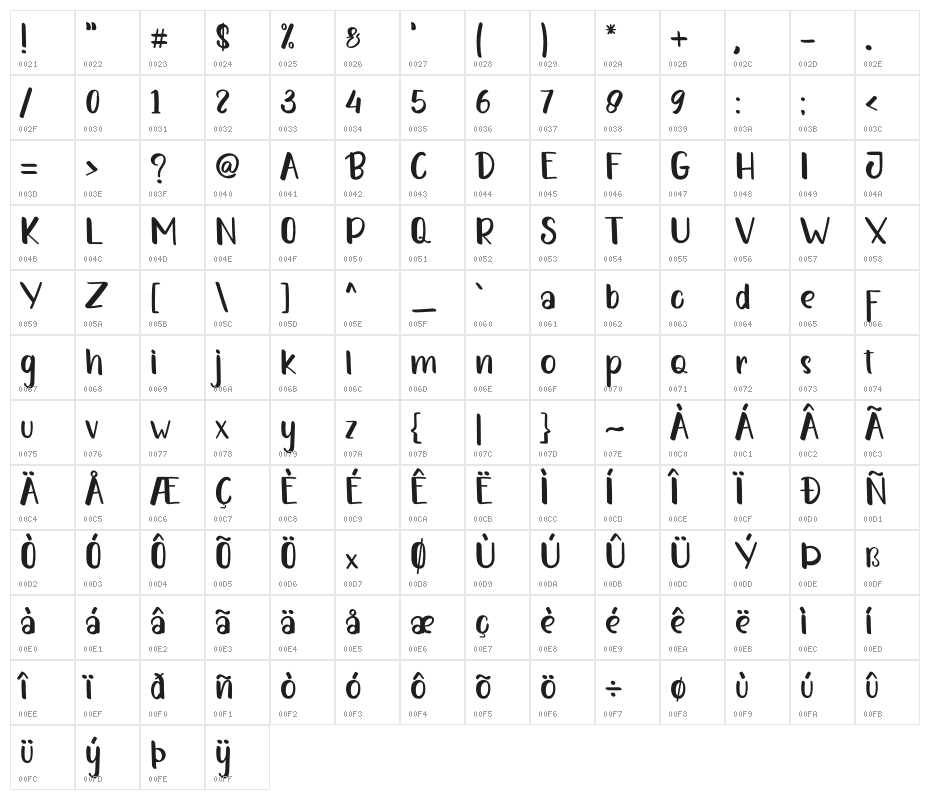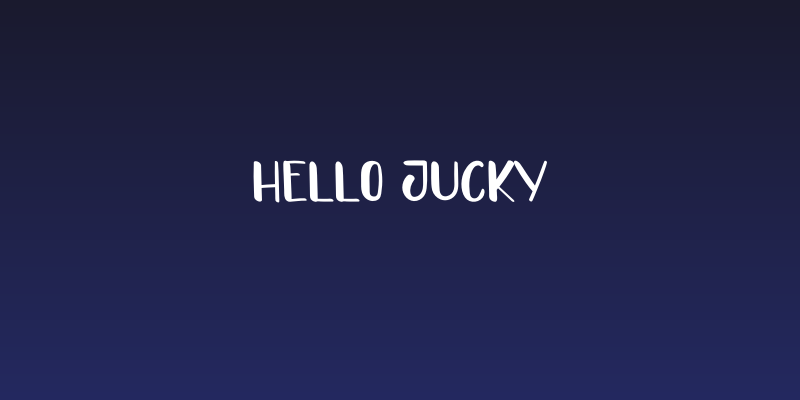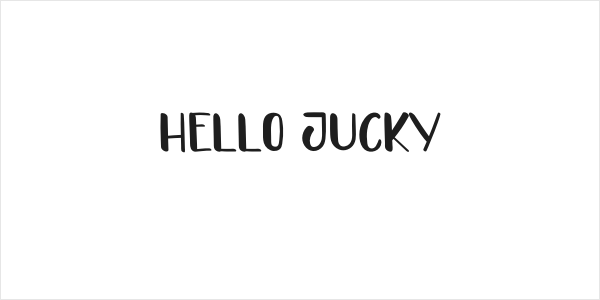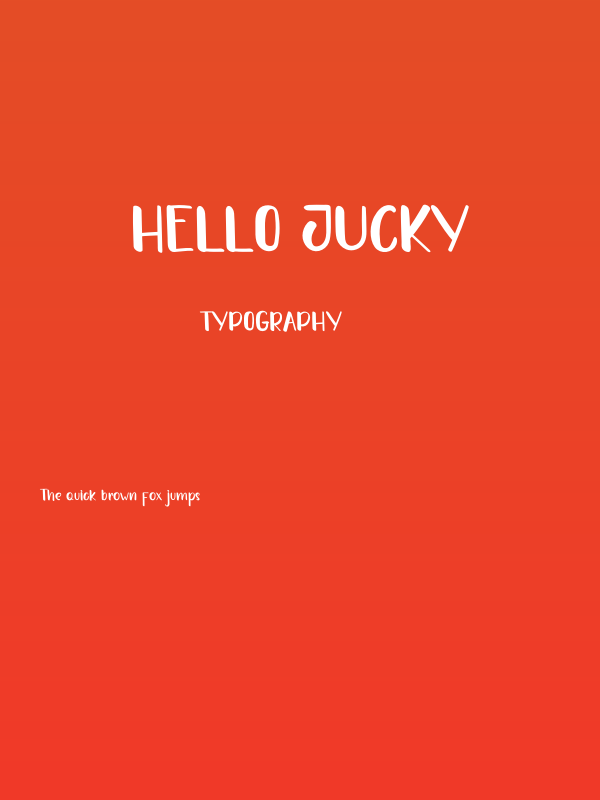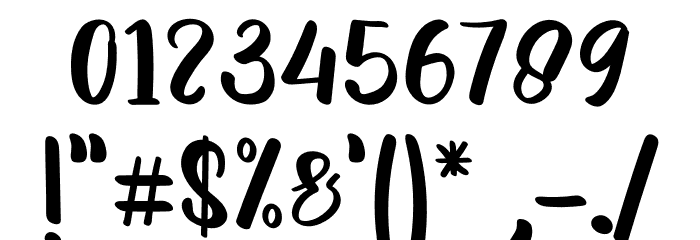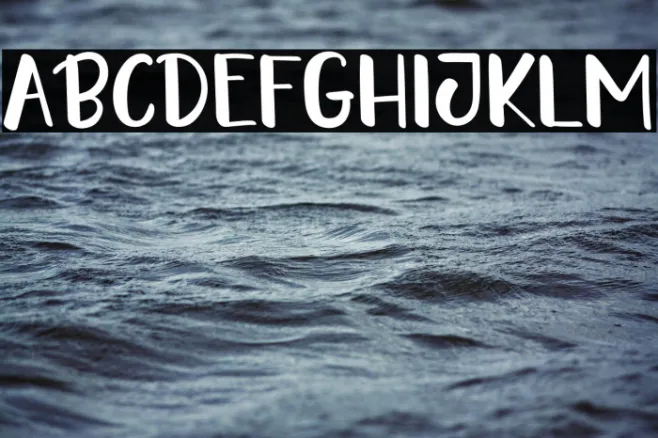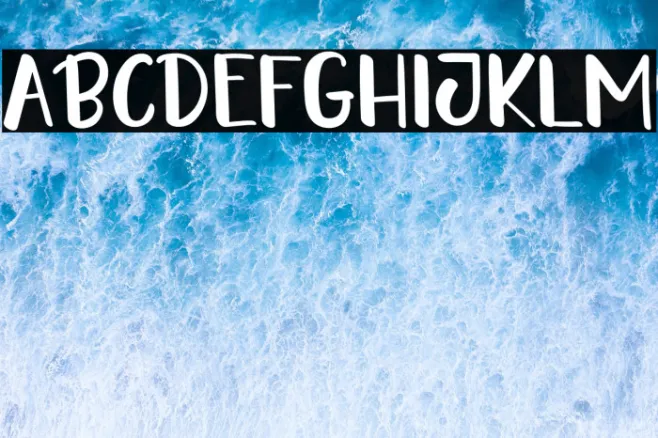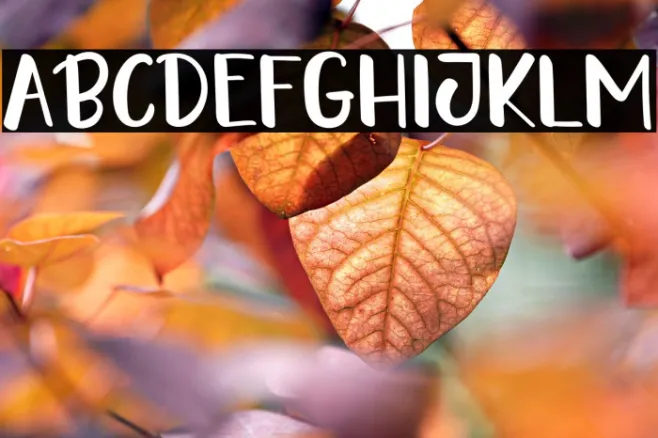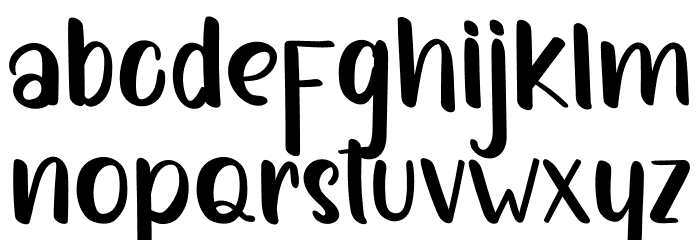
HELLO JUCKY Font
HELLO JUCKY Description
This font features a playful and bold handwritten style with a casual and friendly appearance. The characters are slightly irregular, giving it a unique and personal touch. The uppercase and lowercase letters maintain a consistent flow, while the numbers and special characters complement the overall design. The strokes are thick and rounded, enhancing its legibility and making it suitable for various creative projects. Its informal style makes it perfect for designs that aim to convey warmth and approachability.
| Overall Style | Playful, Casual |
| Proposed Projects | Ideal for greeting cards, children's books, playful branding, and social media graphics. |